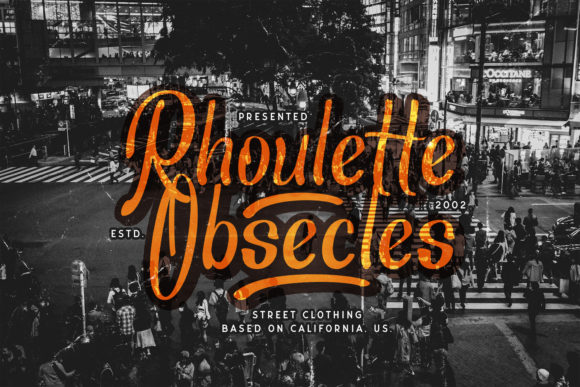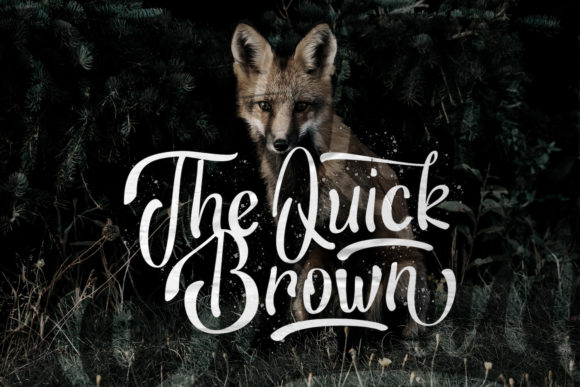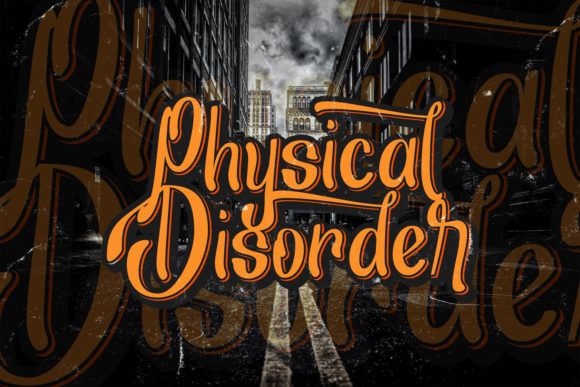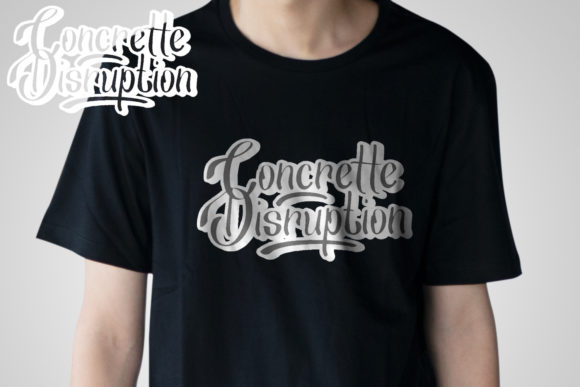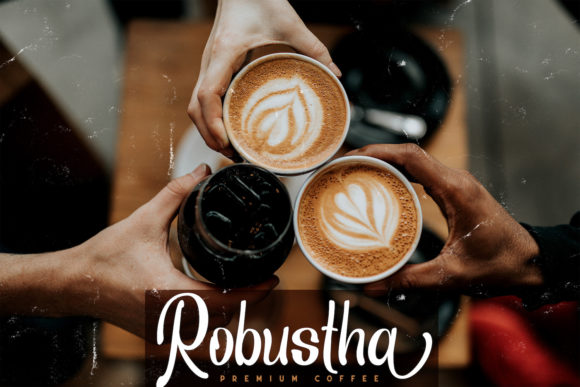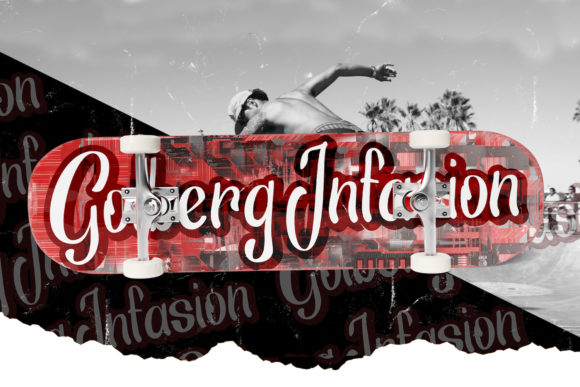
The Elusive Font: A Designer’s Journey with Ansagia Metta
Have you ever been in the middle of a design project, and suddenly, the perfect font just seems out of reach? I recall a particularly frustrating experience when a client requested a unique, elegant touch for their branding. After scouring the internet, I stumbled upon Ansagia Metta – a flowing handwritten font that instantly captured the essence of what I was looking for.
A First Impression: Ansagia Metta Review
Ansagia Metta is described as an elegant, flowing handwritten font, ideal for urban creations. Here’s what I love about it:
- ✨ Elegant and sophisticated feel, perfect for high-end branding or luxury designs
- 💫 Unique character set, offering a fresh take on traditional handwritten fonts
- 🌈 Beautifully crafted to evoke an urban, modern aesthetic
While Ansagia Metta has won me over with its charm, there are a few quirks to consider:
- 🤔 Limited availability of stylistic alternates, which might restrict design variations
- ⚠️ Not ideal for body text, as it’s best suited for headlines and titles
The Story Behind Ansagia Metta: Designer Inspiration
Ansagia Metta was crafted with the intention of capturing the essence of urban elegance. Its designer aimed to create a font that would evoke a sense of sophistication and modernity, perfect for designers seeking a unique touch for their creations.
| Font Name | Ansagia Metta Font |
| What type of designs is Ansagia Metta best suited for? | Ansagia Metta is ideal for urban designs, luxury branding, and high-end projects that require an elegant touch. |
| Can I use Ansagia Metta for body text? | No, Ansagia Metta is best suited for headlines and titles. Its elegant design may not be suitable for large blocks of body text. |
| Does Ansagia Metta support OpenType features? | Yes, Ansagia Metta supports OpenType features, including ligatures and stylistic alternates. |